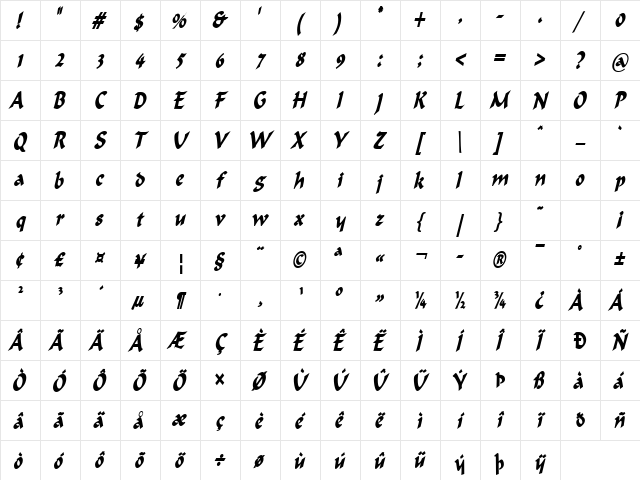
Flat Brush Thin BoldItalic
Complete Flat Brush Thin BoldItalic glyph index. Displaying only characters natively supported by Flat Brush Thin BoldItalic font.
Design Context for Flat Brush Thin
Flat Brush Thin flows with the natural rhythm of handwritten lettering, making it ideal for designs that call for warmth and personal expression. Its bold stroke weight gives it real presence on the page.
Font Pairing: Combine Flat Brush Thin with a simple geometric sans for maximum contrast - the tension between flowing curves and clean structure is a classic typographic pairing.
Pro Tip: Use Flat Brush Thin for short runs of text - names, titles, or taglines. Extended body copy in script faces tires the eye quickly.